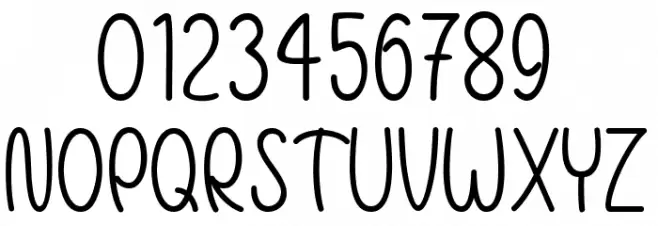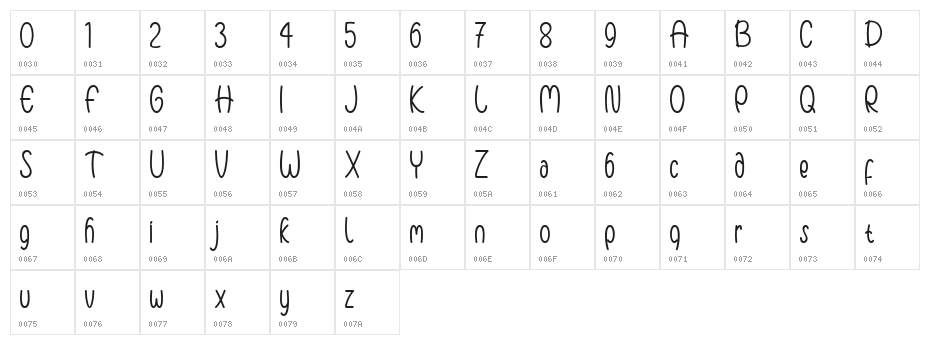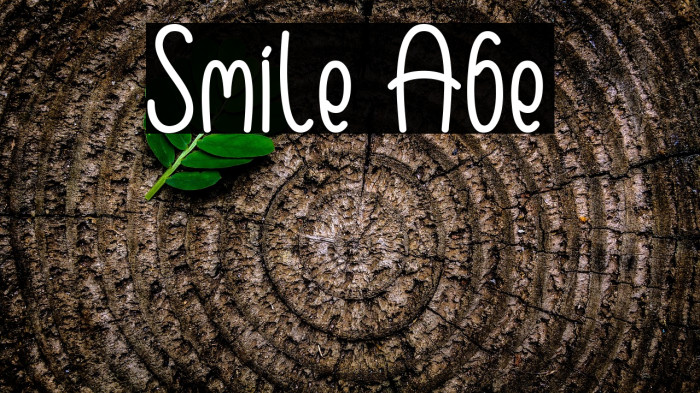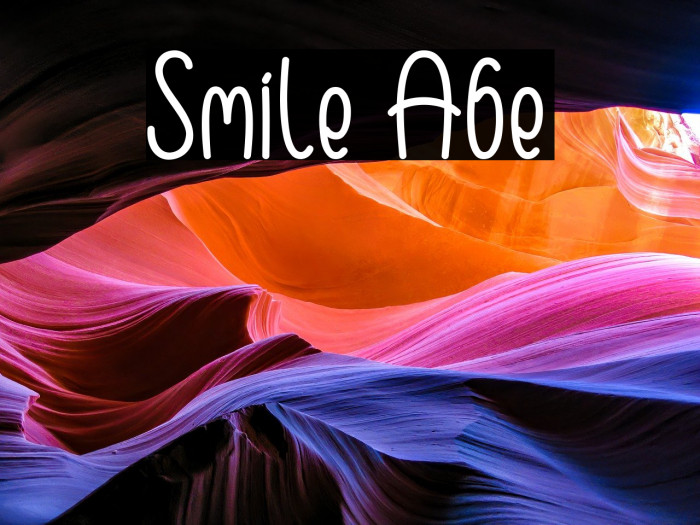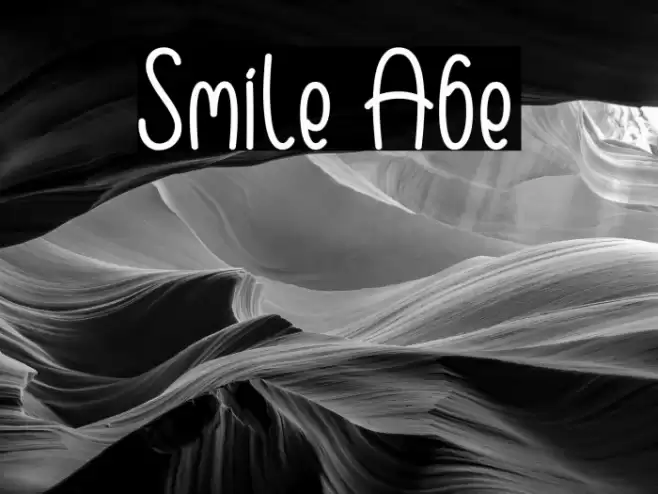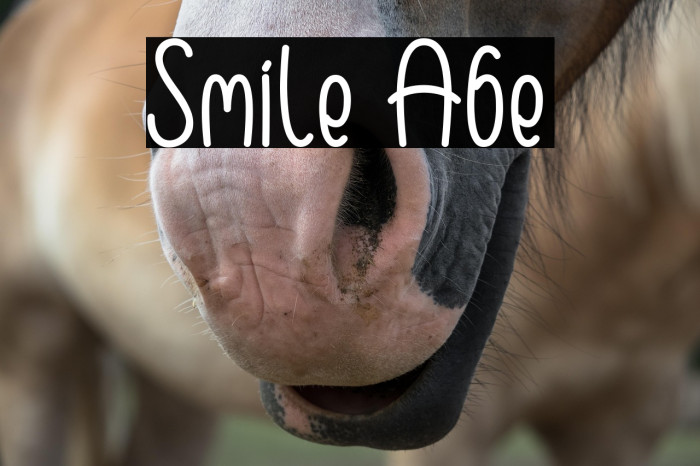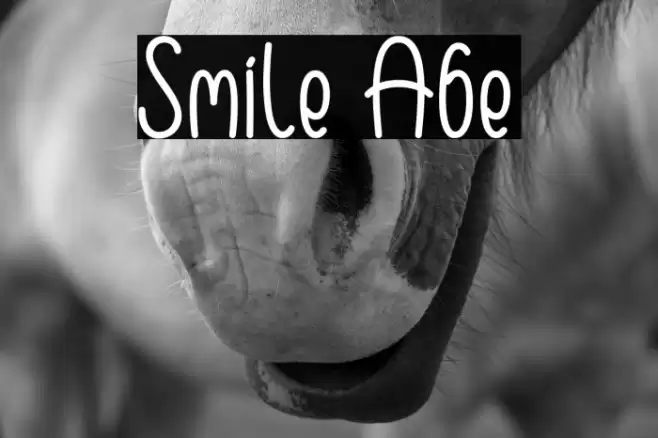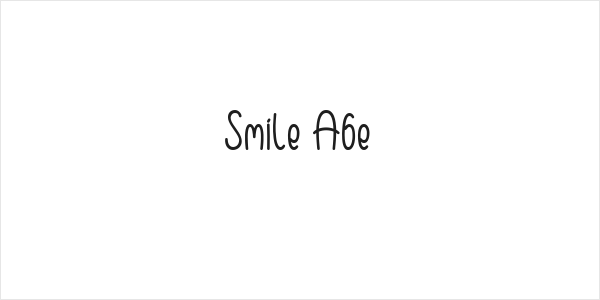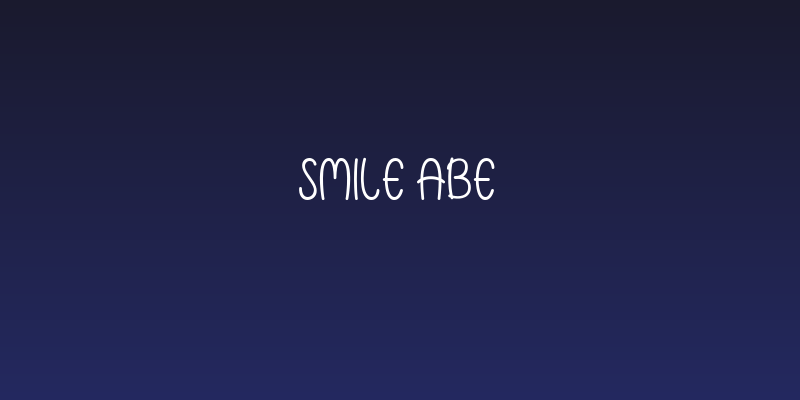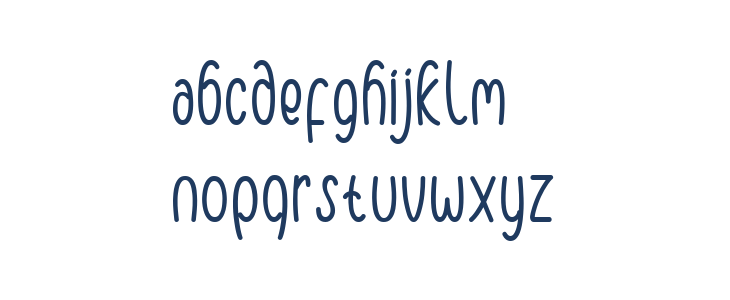
Smile Abe Font
Smile Abe Description
This playful and whimsical font features rounded, smooth strokes that give it a friendly and approachable appearance. The characters are slightly elongated with a consistent stroke width, creating a harmonious and balanced look. The uppercase and lowercase letters maintain a uniform style, while the numerals and special characters blend seamlessly with the overall design. This font's simplicity and charm make it versatile for various creative projects.